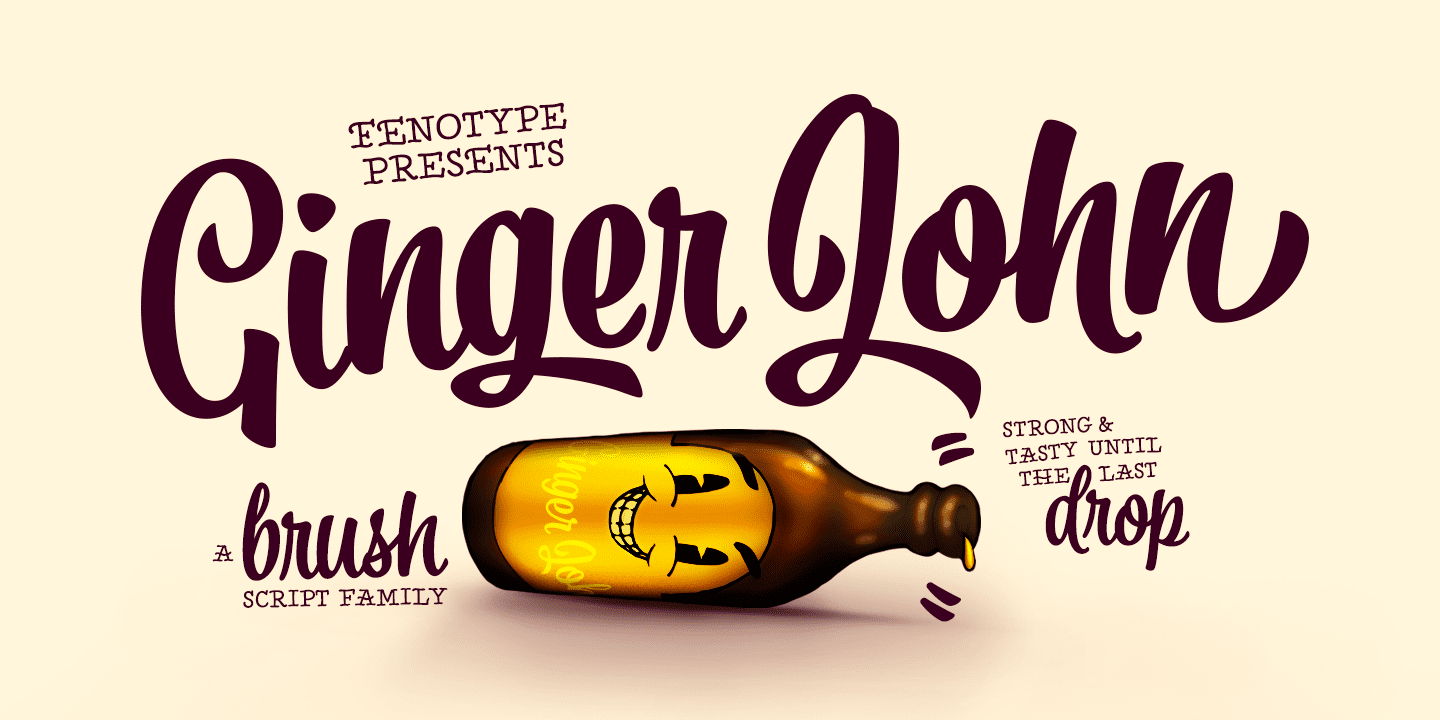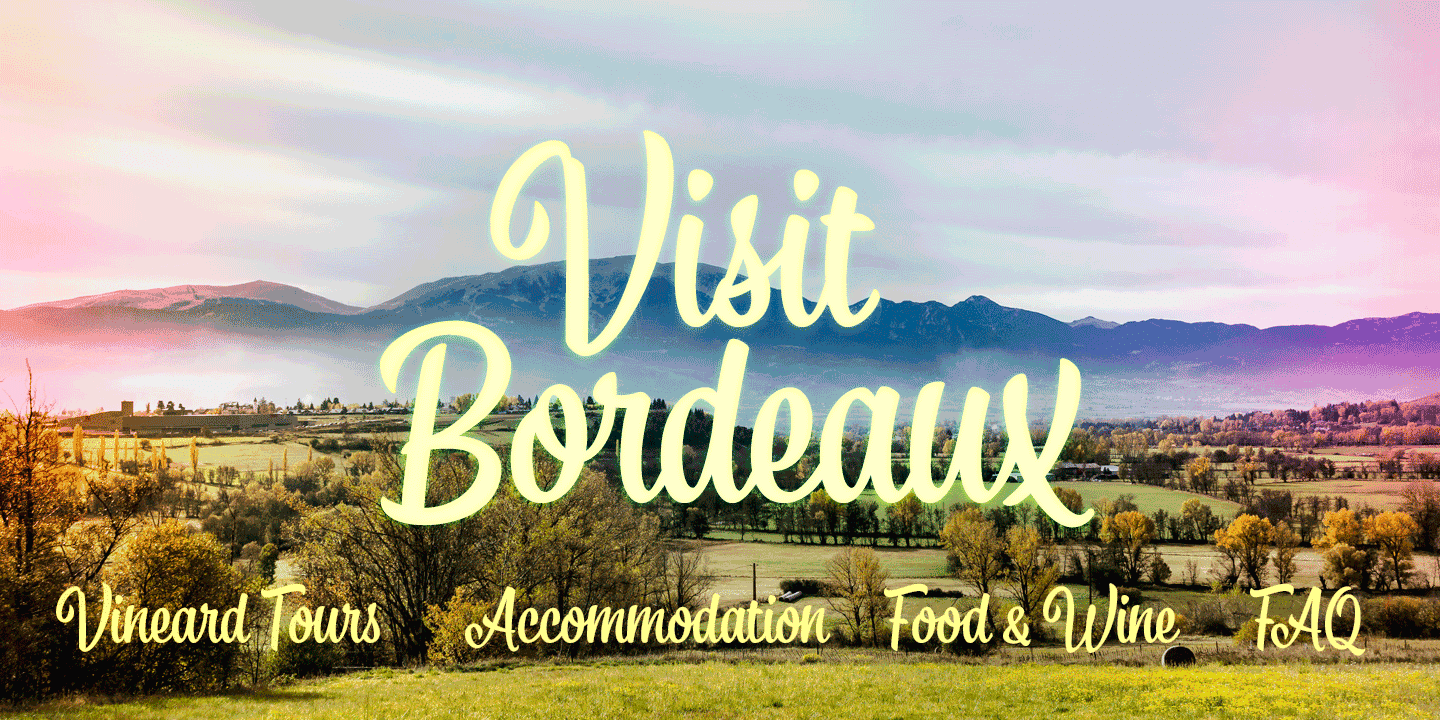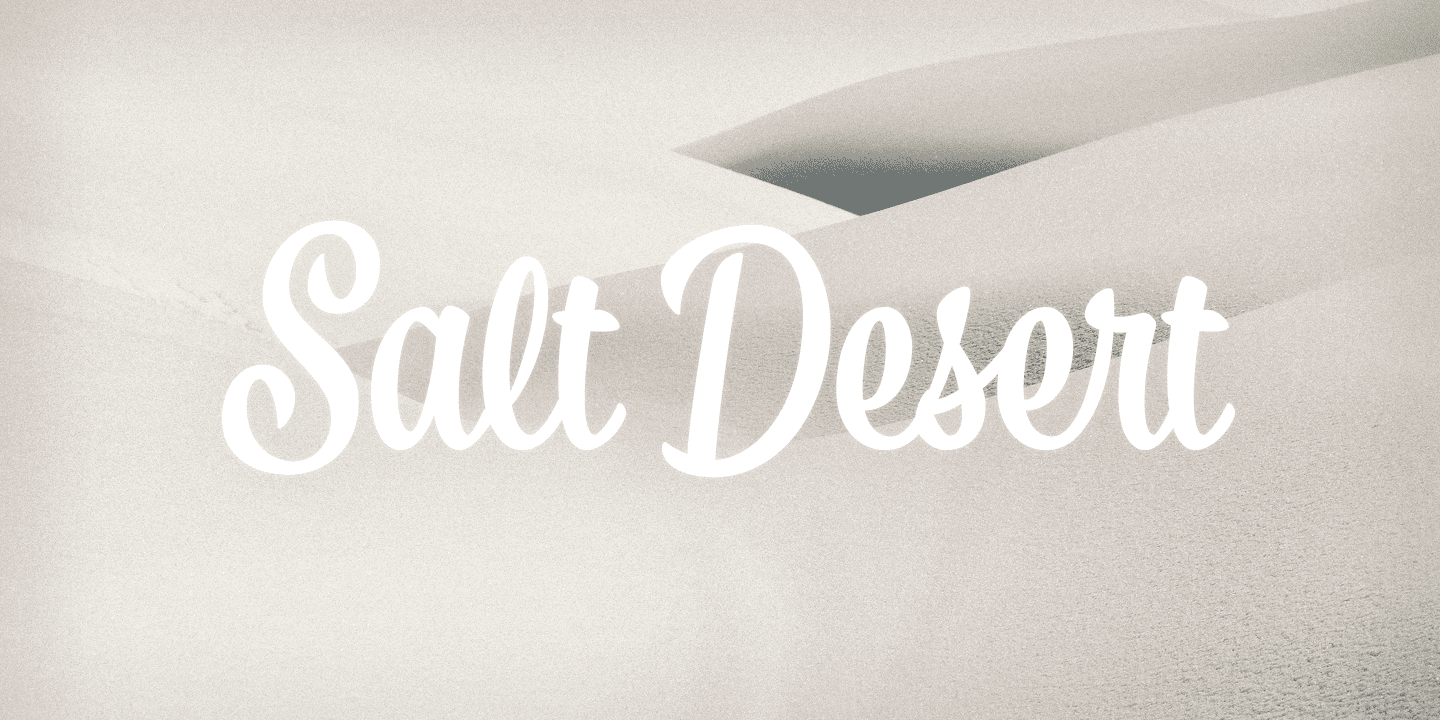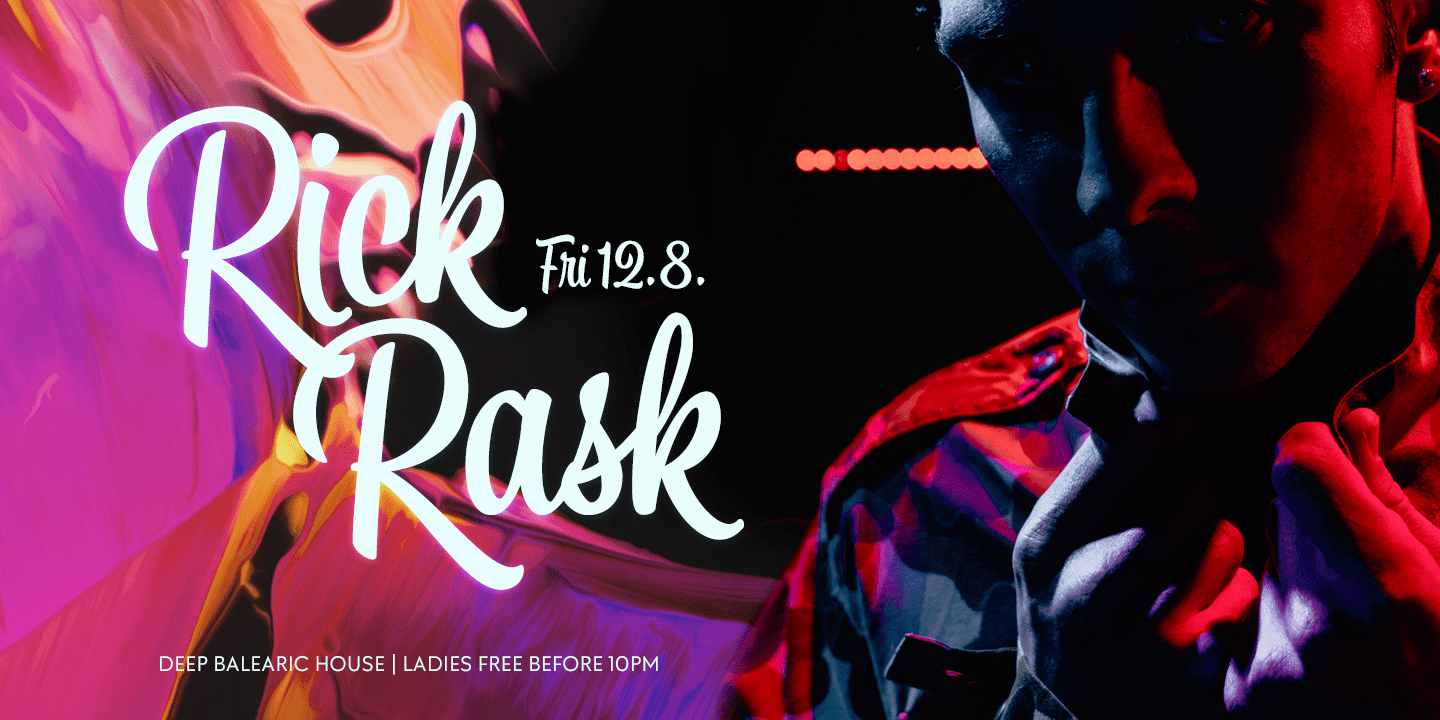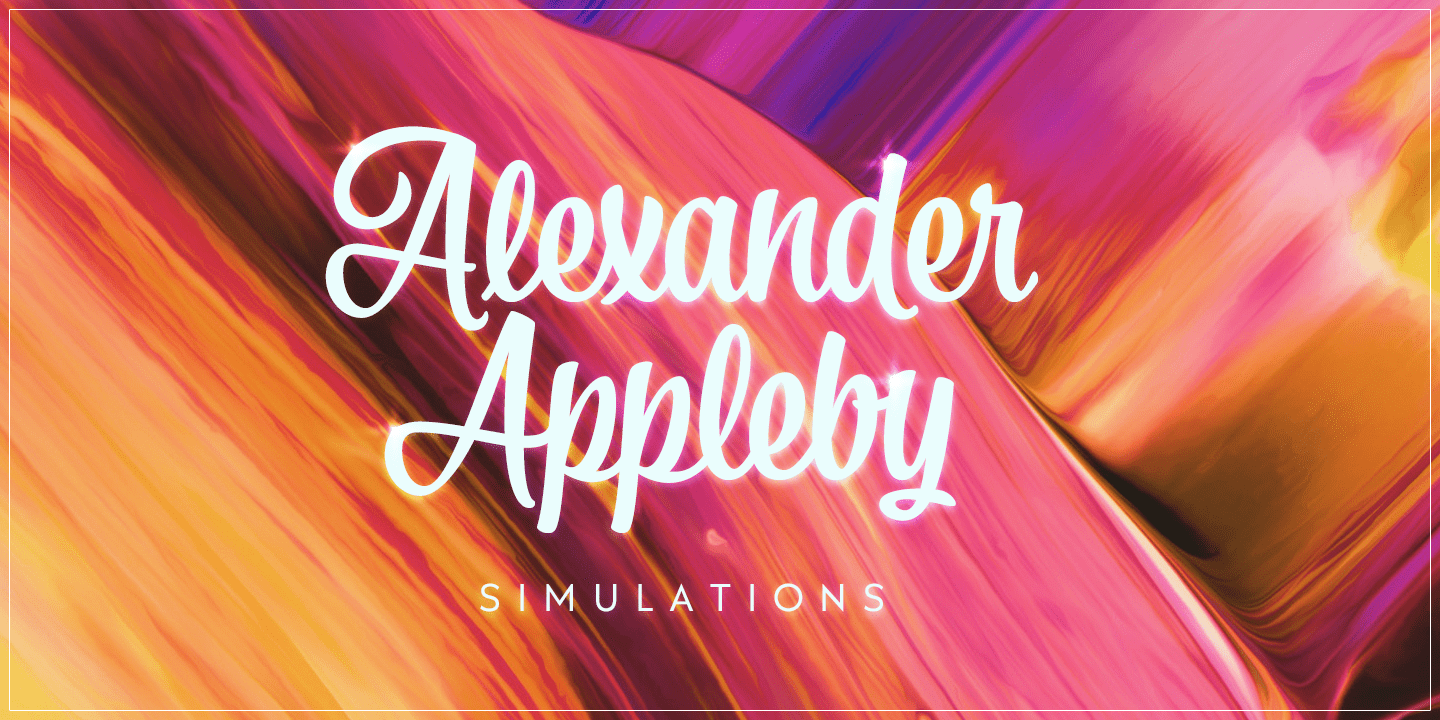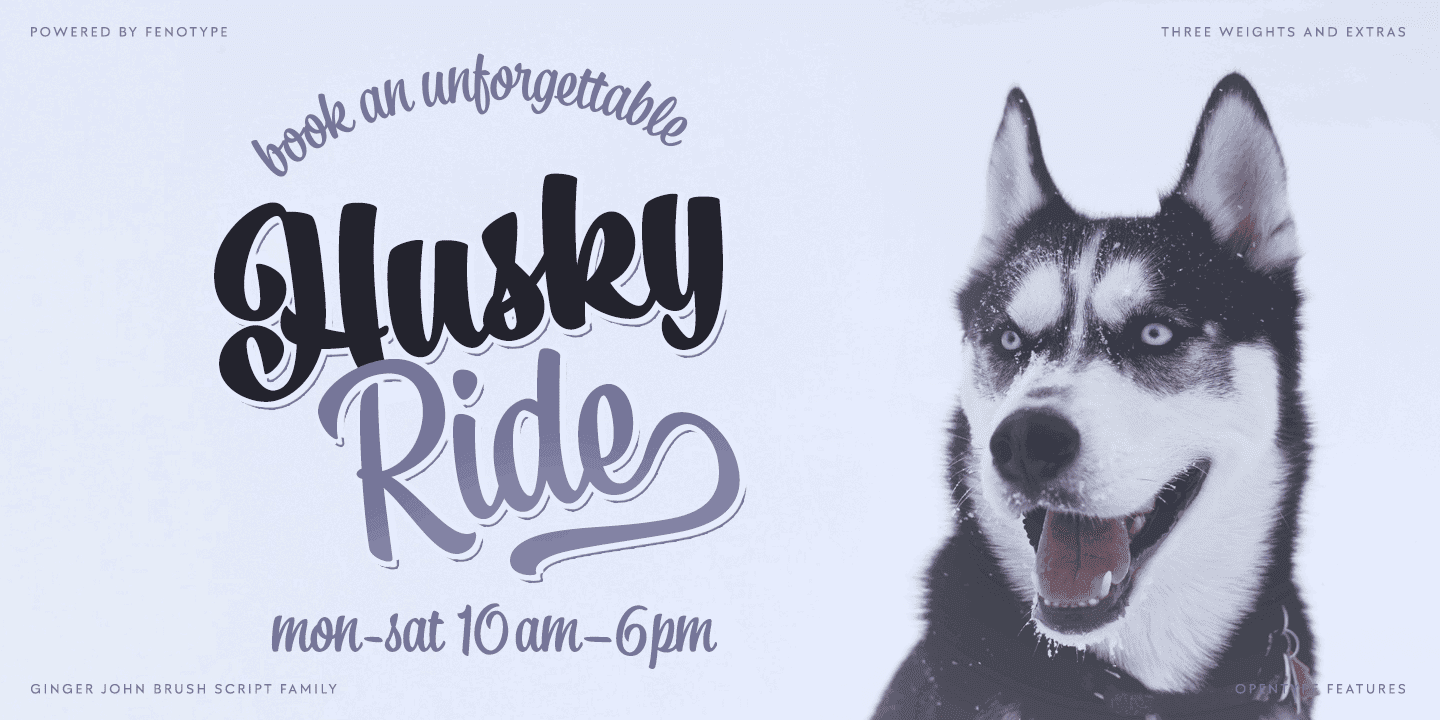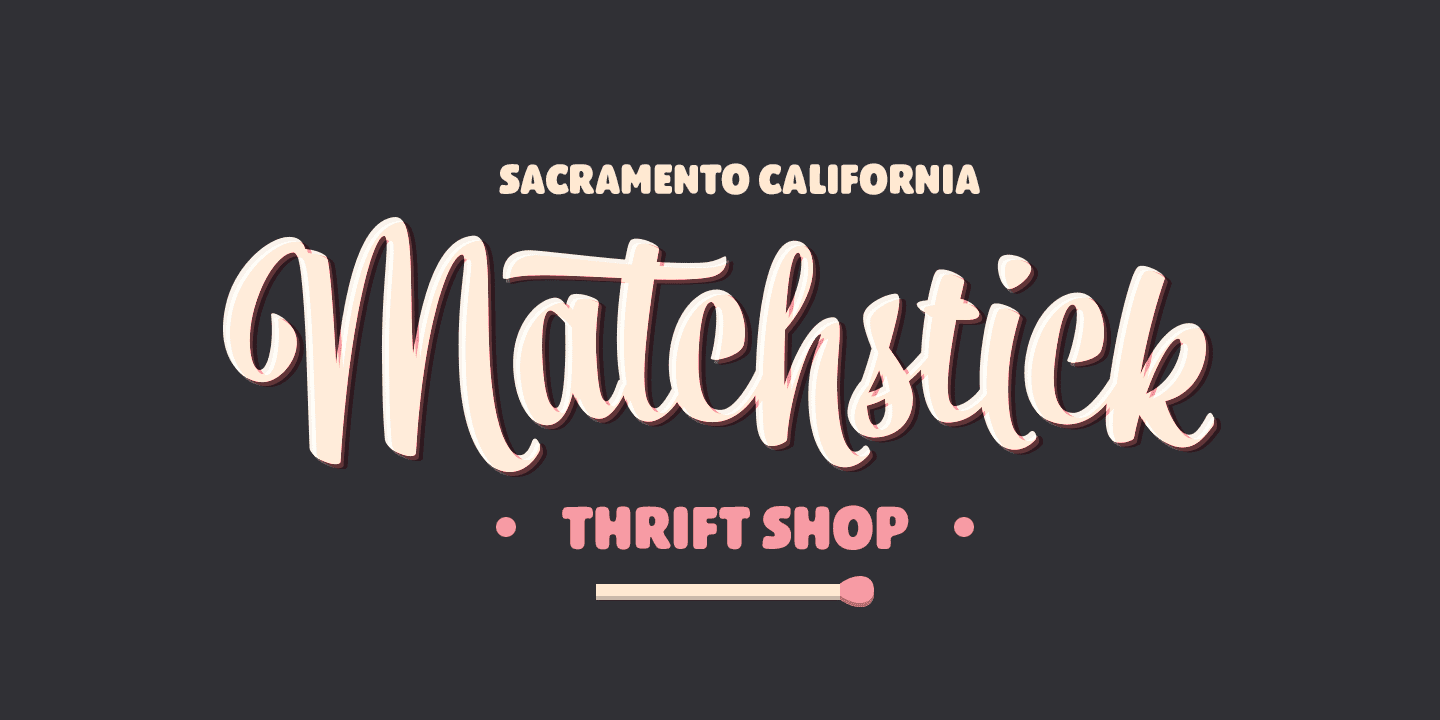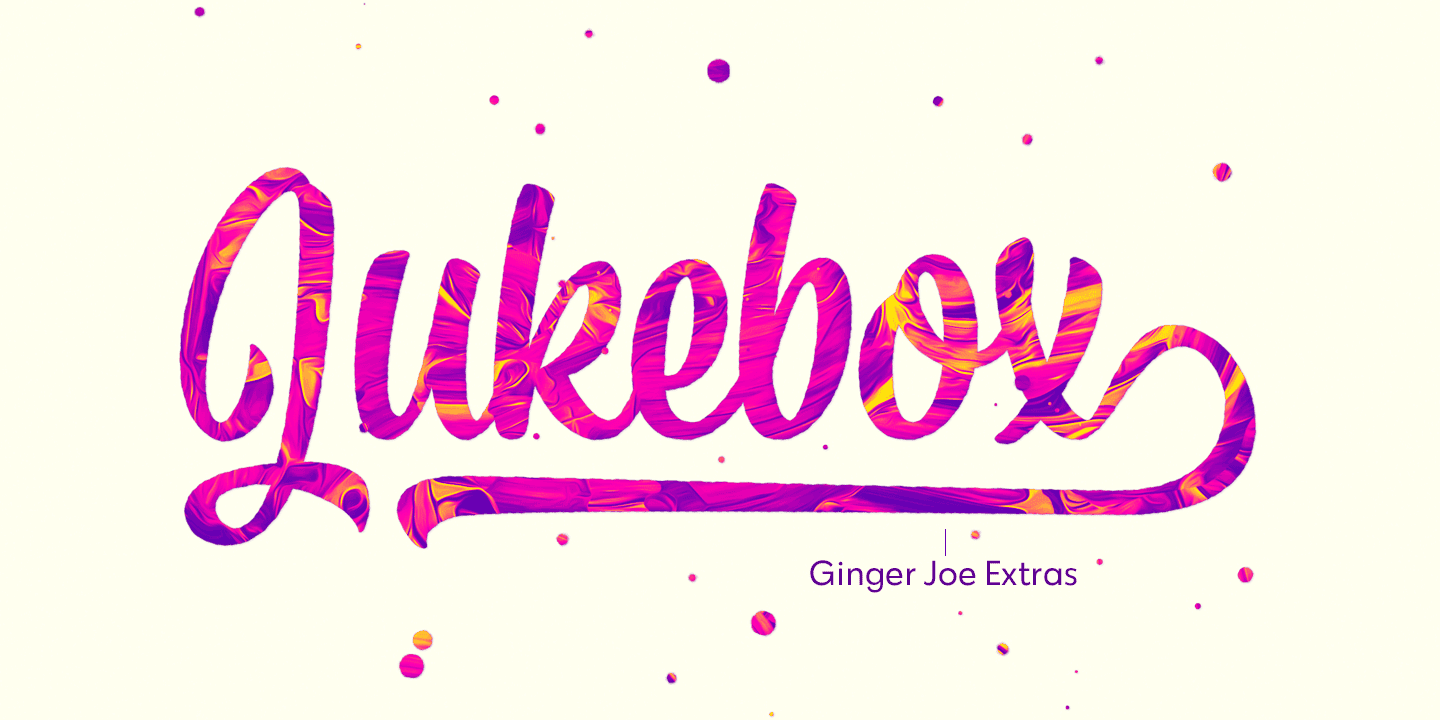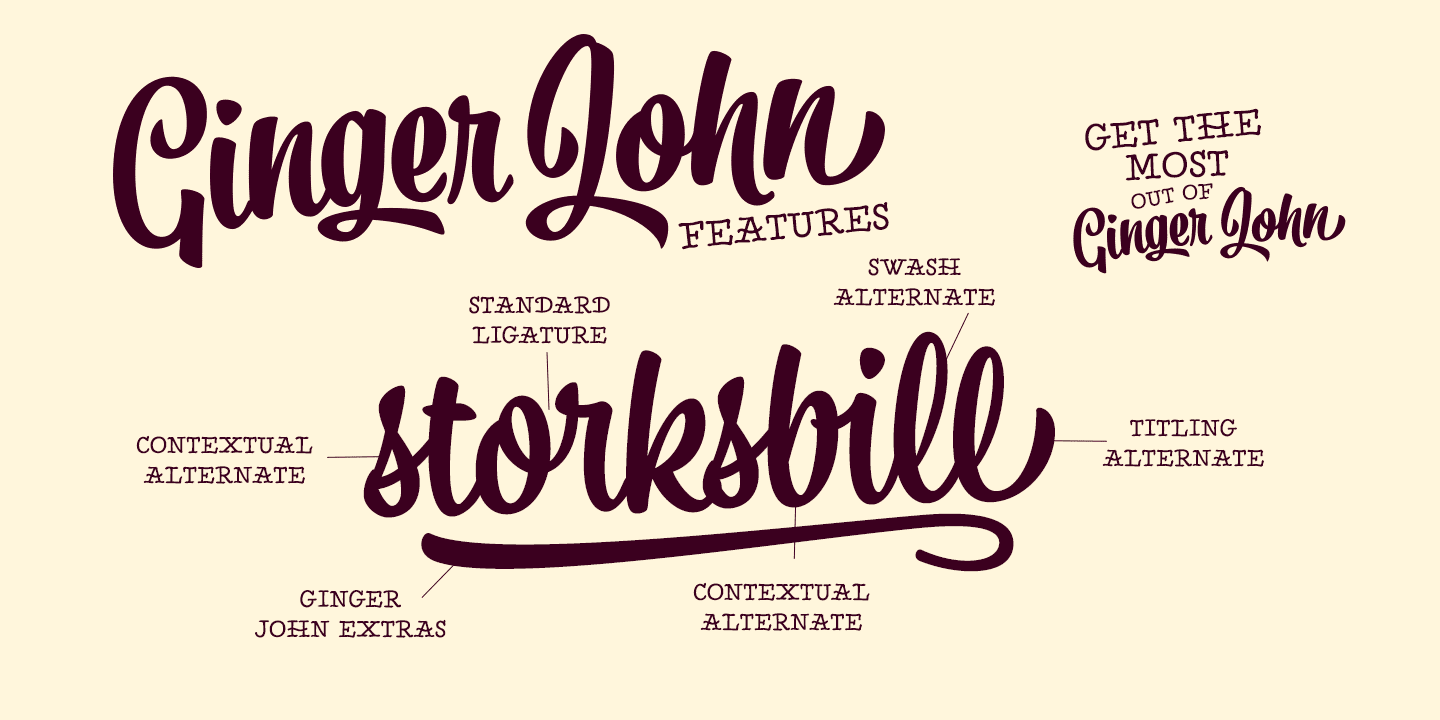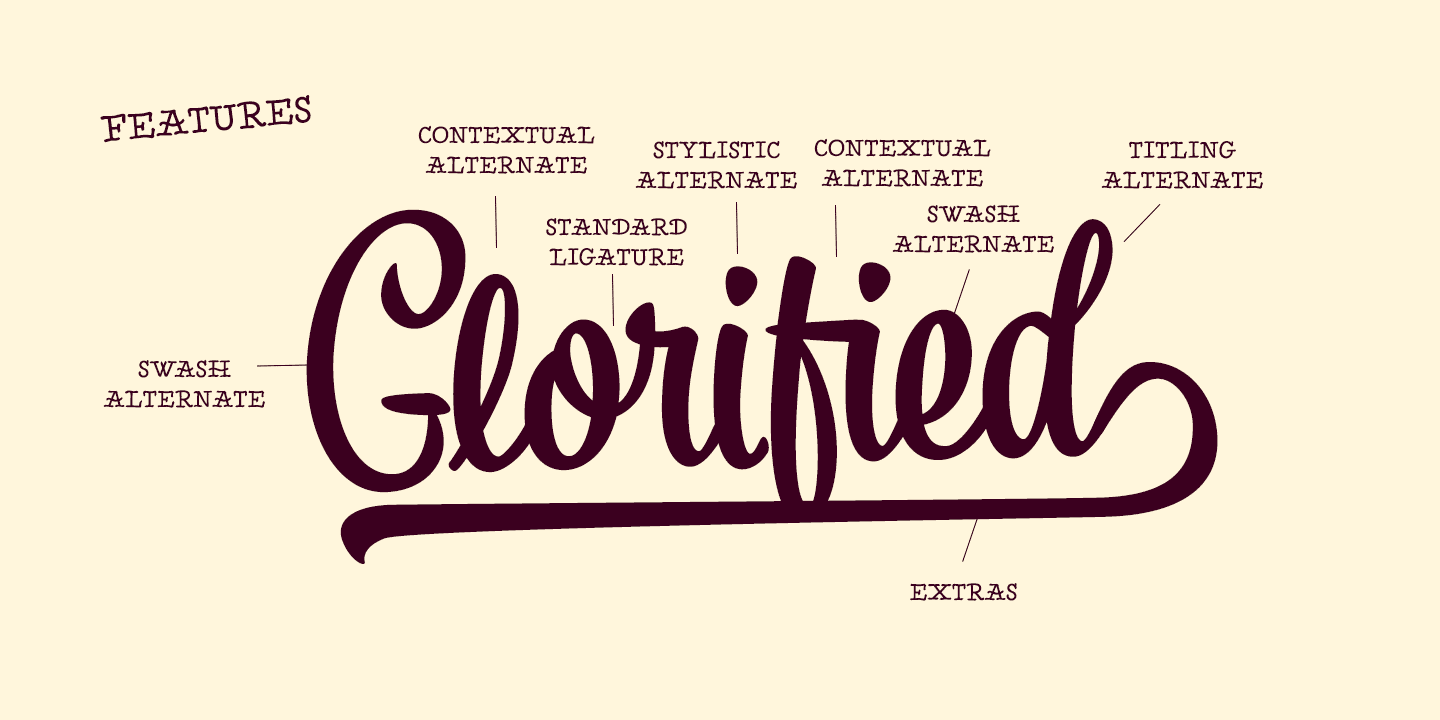
Ginger John is equipped with automatic Contextual Alternates and Standard Ligatures that ad variety in the flow and keep connections smooth. If that isn’t enough there’s Swash, Stylististic and Titling Alternates for every standard uppercase and lowercase character.
Ginger John Extras is a pack of strokes and swashes that can be used as underlining endings for words.
Ginger John is an outstanding display font that works great for any display use from branding to packaging to logotype.